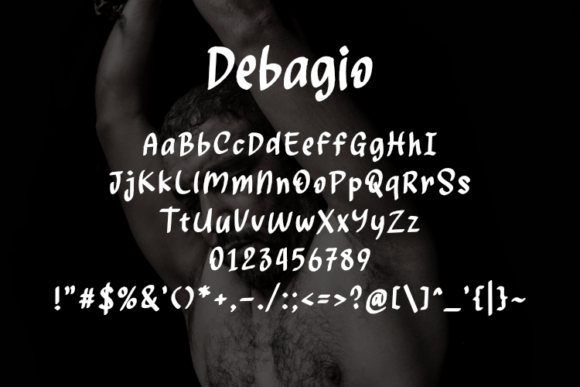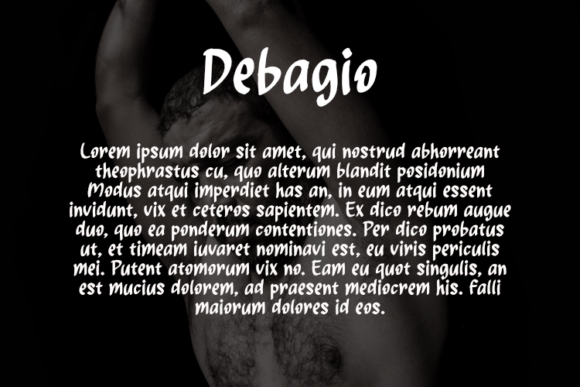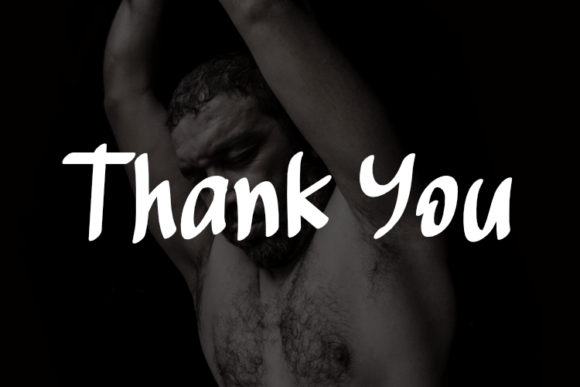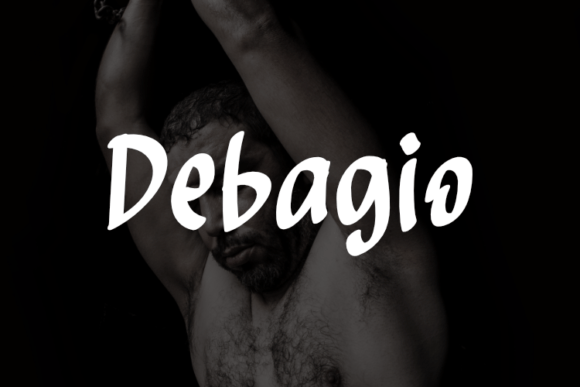
Unleash Your Creativity with Debagio Font: The Ultimate Design Companion
In the world of design, the right font can make all the difference. It can elevate your project from ordinary to extraordinary, adding a touch of personality and flair that sets it apart from the rest. If you’re a designer, crafter, or DIY enthusiast looking for a versatile and stylish font to bring your creations to life, look no further than Debagio Font. In this article, we’ll explore the unique characteristics of Debagio and how it can help you unleash your creativity and take your designs to the next level.
What is Debagio Font?
Debagio Font is a modern, elegant, and highly versatile typeface that has been carefully crafted to complement a wide range of design projects. Its unique blend of classic and contemporary elements makes it an ideal choice for designers, crafters, and DIY enthusiasts who want to add a touch of sophistication and style to their work. Whether you’re creating clothing, t-shirts, product designs, or digital projects, Debagio Font is the perfect companion to help you bring your vision to life.
The Versatility of Debagio Font
One of the standout features of Debagio Font is its incredible versatility. This font is designed to adapt seamlessly to a wide range of design projects, from fashion and apparel to product design and digital media. Whether you’re creating a bold and eye-catching headline or a subtle and elegant label, Debagio Font can help you achieve your design goals with ease. Its clean lines, elegant curves, and highly legible design make it perfect for use in a variety of contexts, from large-scale signage to small-scale digital projects.
Debagio Font in Fashion and Apparel Design
Debagio Font is a game-changer for fashion and apparel designers. Its stylish and modern design makes it perfect for use on clothing, t-shirts, hats, and other wearable products. The font’s elegant curves and clean lines ensure that your designs will look great on both light and dark backgrounds, making it easy to create stunning and eye-catching apparel that will stand out from the crowd. Whether you’re designing for a fashion brand, creating custom merchandise, or simply making gifts for friends and family, Debagio Font is the perfect choice.
Debagio Font in Product Design
Debagio Font is not just limited to fashion and apparel design. Its versatility and elegance make it an excellent choice for product designers who want to add a touch of style and sophistication to their creations. Whether you’re designing labels, packaging, or promotional materials, Debagio Font can help you create a cohesive and compelling brand identity that will set your products apart from the competition. Its highly legible design ensures that your message will be clear and easy to read, making it perfect for use on a wide range of products.
Debagio Font in Digital Design
In addition to its use in print design, Debagio Font is also perfectly suited for digital projects. Its clean lines and elegant curves make it easy to read on a variety of devices, from smartphones and tablets to laptops and desktops. Whether you’re designing websites, social media graphics, or digital marketing materials, Debagio Font can help you create stunning and effective digital designs that will engage and inspire your audience.
Why Choose Debagio Font?
So why choose Debagio Font for your design projects? Here are just a few reasons why Debagio stands out from the crowd:
- Versatility: Debagio Font is highly versatile and can be used in a wide range of design projects, from fashion and apparel to product design and digital media.
- Elegance: Debagio Font has a stylish and modern design that adds a touch of sophistication and elegance to any project.
- Legibility: Debagio Font is highly legible, making it perfect for use in a variety of contexts, from large-scale signage to small-scale digital projects.
- Adaptability: Debagio Font adapts seamlessly to a wide range of design projects, making it easy to use in a variety of different contexts.
In conclusion, Debagio Font is a versatile and stylish typeface that is perfect for designers, crafters, and DIY enthusiasts who want to add a touch of elegance and sophistication to their creations. Its highly legible design, elegant curves, and clean lines make it perfect for use in a wide range of design projects, from fashion and apparel to product design and digital media. Whether you’re looking to create stunning apparel, eye-catching product designs, or effective digital projects, Debagio Font is the ultimate tool to help you unleash your creativity and bring out the true potential of your designs.